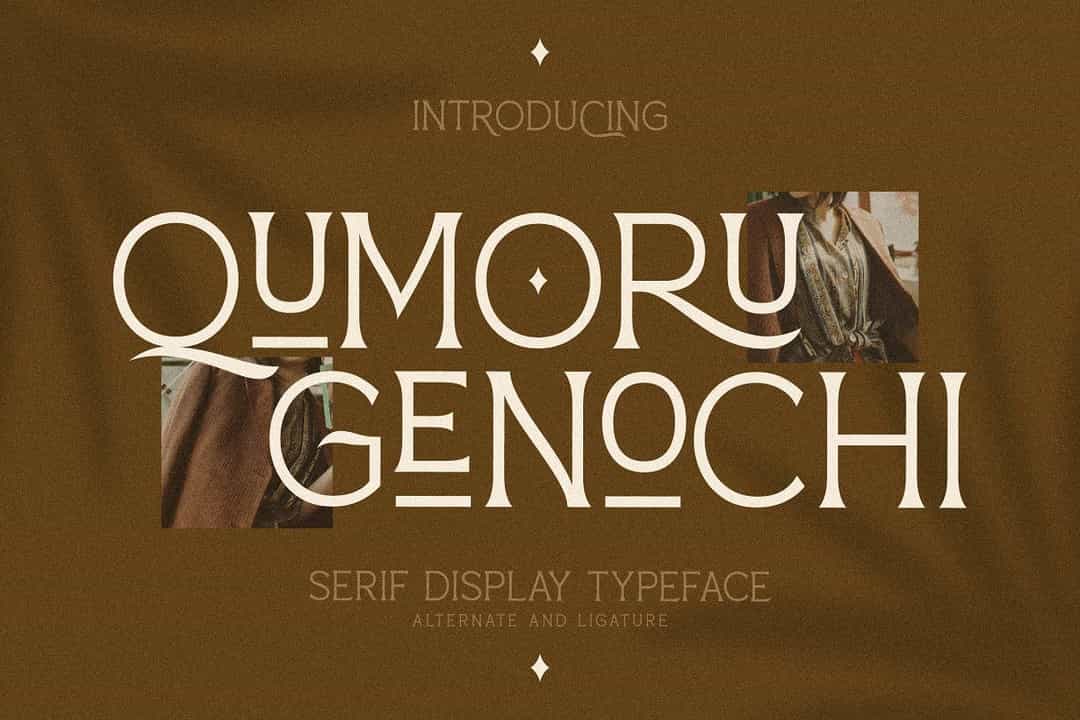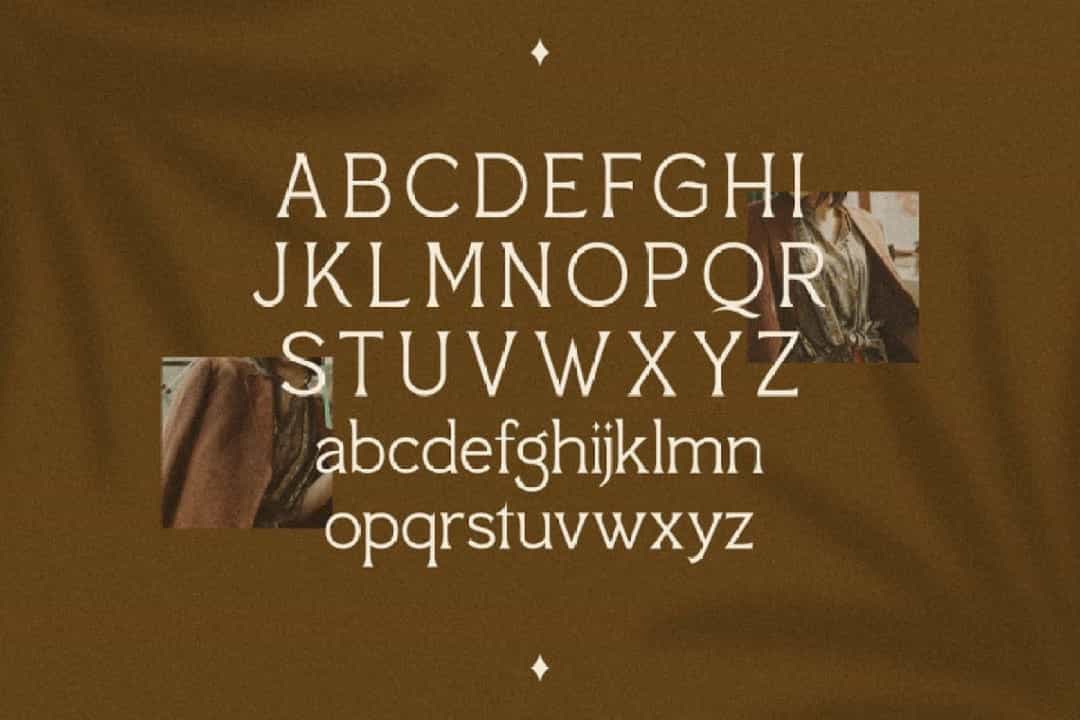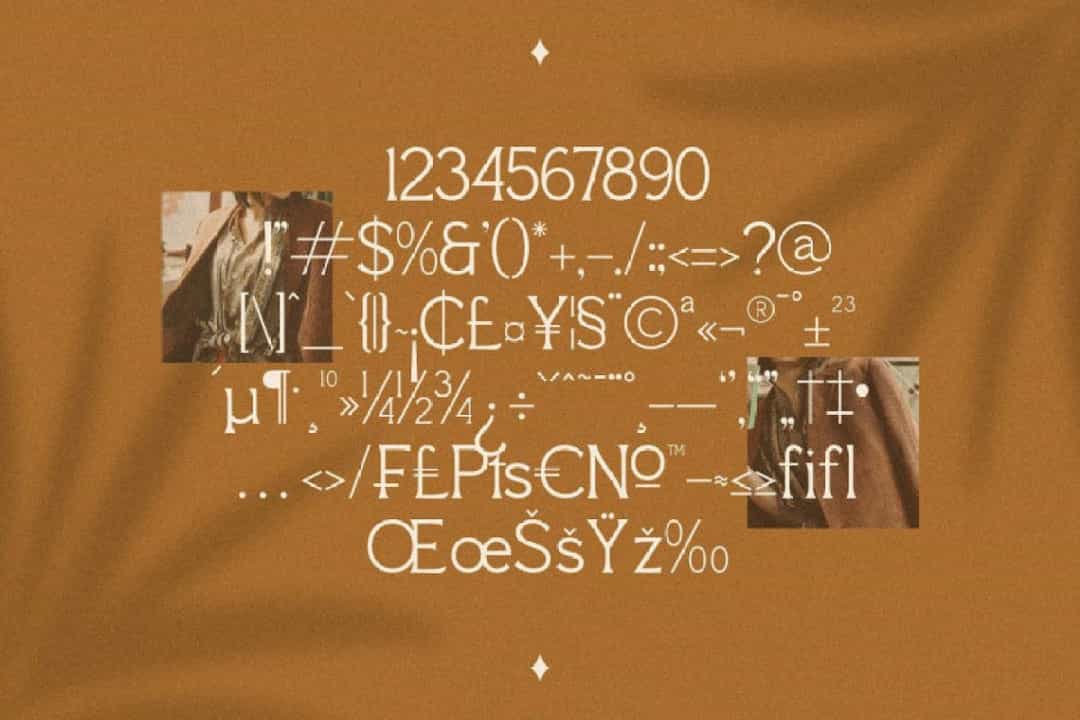
Qumoru Genochi is an elegant serif font designed for luxurious feminine projects. PUA encoded, this font gives instant access to its rich selection of Swashes and Glyphs – perfect for modern designs!